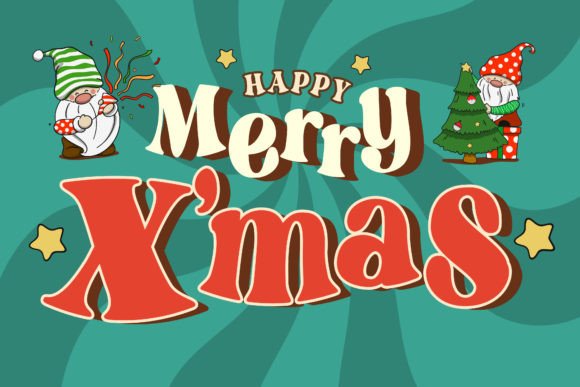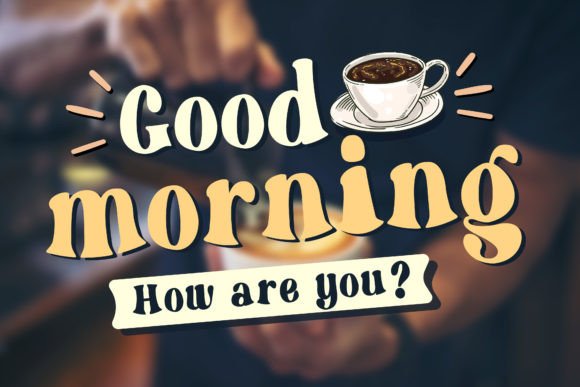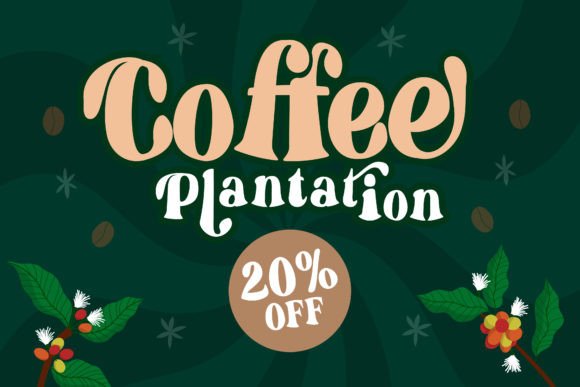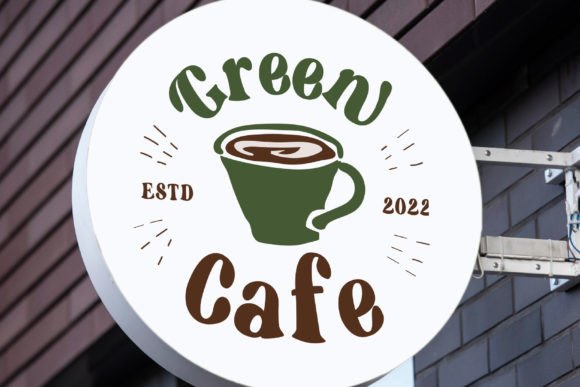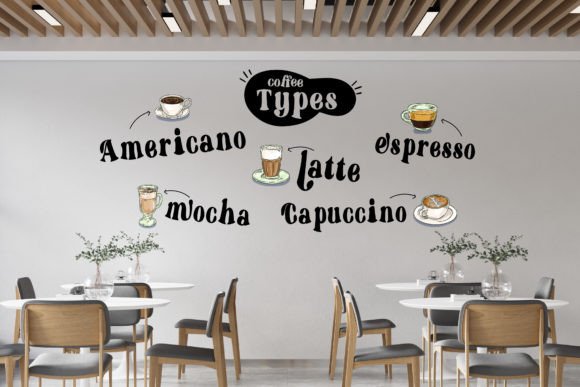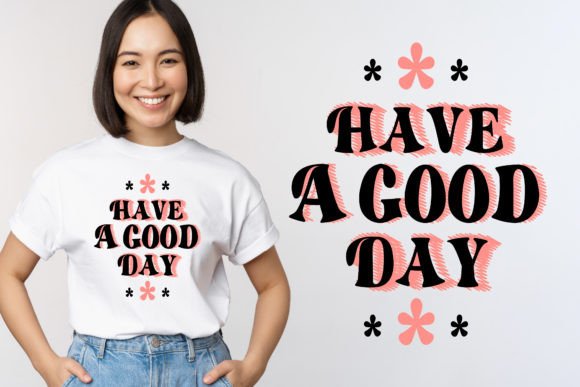
Coffee Gnome Font: The Ultimate Retro Display Font for Designers and Crafters
Are you looking for a font that can add a touch of vintage charm to your designs? Look no further than the Coffee Gnome Font! This clean and smooth vintage-style retro font is perfect for designers and crafters who want to give their projects a unique and eye-catching look.
What is Coffee Gnome Font?
Coffee Gnome Font is a display font that is inspired by the classic typography of the past. Its clean and smooth lines make it perfect for use in a variety of design projects, from posters and flyers to logos and branding materials. The font is designed to be versatile and can be used in both digital and print applications.
Key Features of Coffee Gnome Font
- Clean and Smooth Design: The Coffee Gnome Font features a clean and smooth design that is perfect for creating visually appealing designs.
- Vintage-Style Retro Look: The font has a vintage-style retro look that is perfect for designers and crafters who want to add a touch of nostalgia to their projects.
Benefits of Using Coffee Gnome Font
There are many benefits to using the Coffee Gnome Font in your design projects. Here are a few:
- Adds a Touch of Vintage Charm: The font adds a touch of vintage charm to any design project, making it perfect for designers and crafters who want to create unique and eye-catching designs.
- Increases Readability: The clean and smooth design of the font makes it easy to read, even at small sizes.
- Versatile: The font is versatile and can be used in a variety of design projects, from posters and flyers to logos and branding materials.
Design Ideas Using Coffee Gnome Font
The Coffee Gnome Font is perfect for a variety of design projects. Here are a few ideas:
- Posters and Flyers: Use the font to create eye-catching posters and flyers for events, promotions, and products.
- Logos and Branding Materials: Use the font to create unique and memorable logos and branding materials for businesses and organizations.
- Social Media Graphics: Use the font to create social media graphics that stand out from the crowd.
- Crafting and DIY Projects: Use the font to add a personal touch to your crafting and DIY projects, such as signs, labels, and cards.
In conclusion, the Coffee Gnome Font is a versatile and stylish font that is perfect for designers and crafters who want to add a touch of vintage charm to their design projects. With its clean and smooth design, vintage-style retro look, and PUA encoding, this font is sure to become a favorite in your design arsenal. So why wait? Download the Coffee Gnome Font today and start creating unique and eye-catching designs!